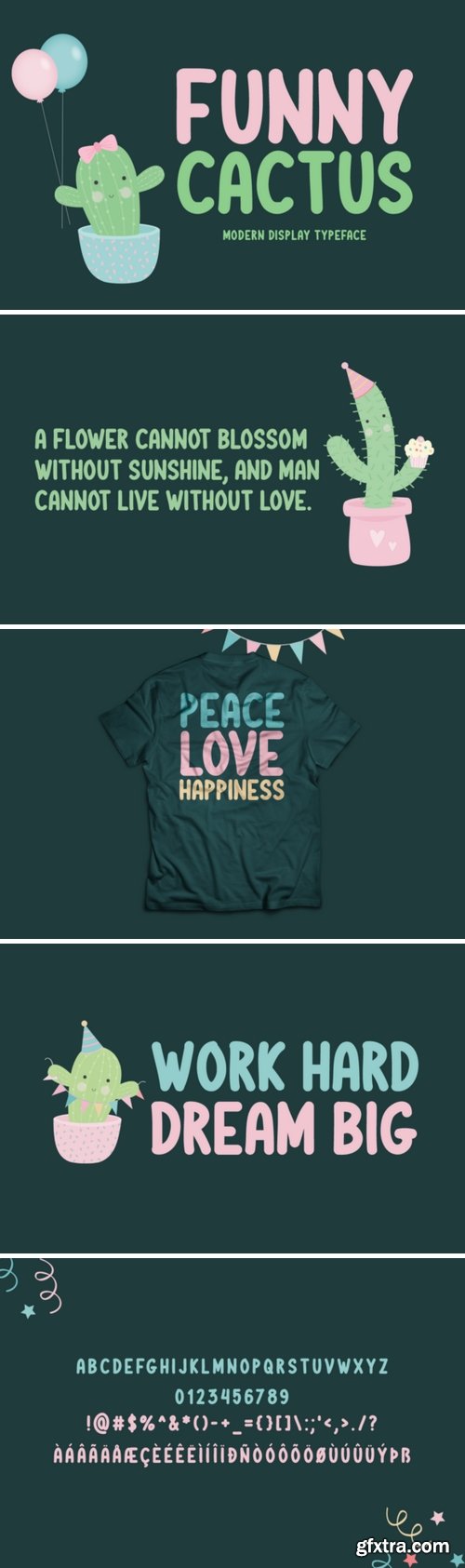
Funny Cactus Font
Fanny Cactus is an adorable and fun font with a unique charm. Fall in love with this botanical and sweet font and use it for all design projects that need a touch of nature!